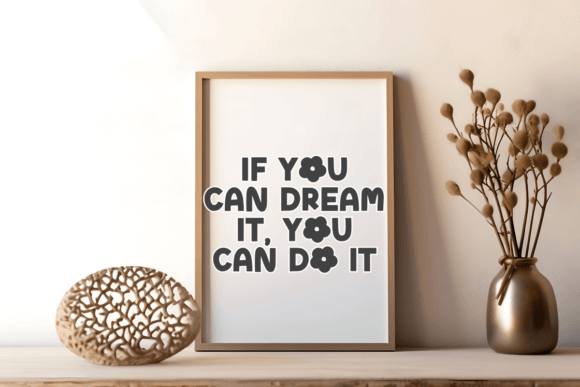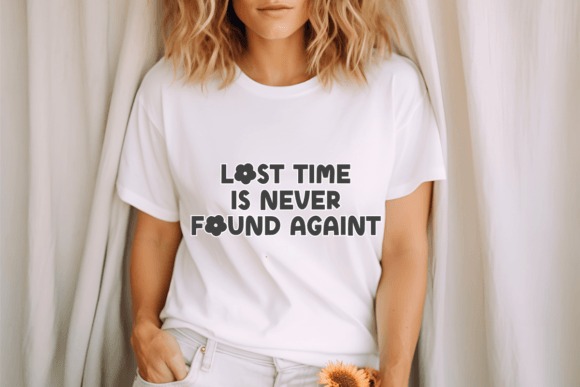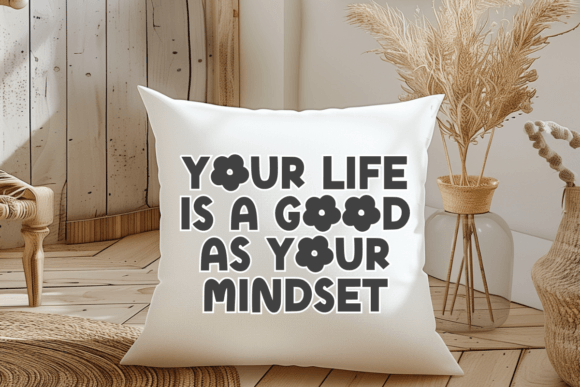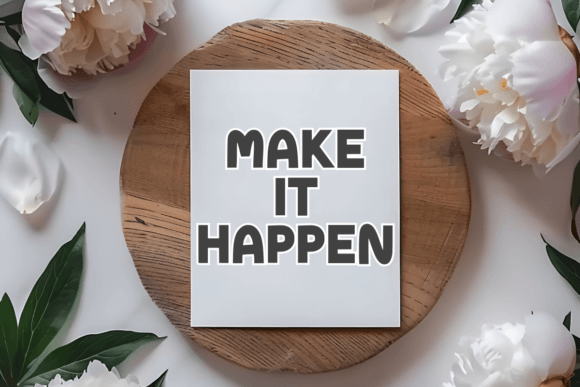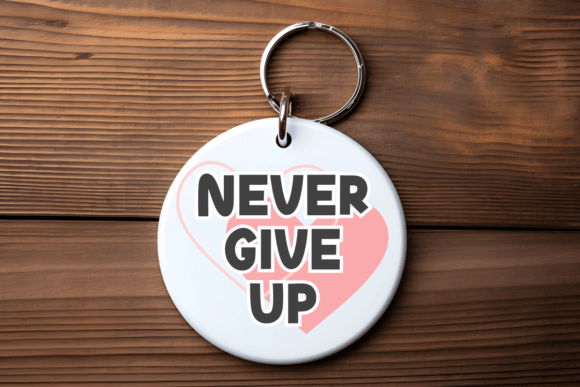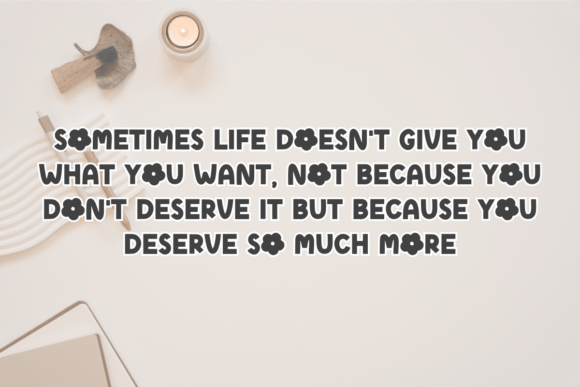
The Perfect Font for Your Next Masterpiece
Have you ever stared at a blank canvas, laptop screen, or piece of paper, waiting for inspiration to strike? You know the feeling – a mix of excitement and nervousness as you try to bring your idea to life. This is where the right font can make all the difference. For designers and creatives, finding the perfect font can be a game-changer. It’s what turns a good design into a great one.
Enter the Awesome World Font – a retro beauty that’s sure to add a touch of fun and quirkiness to any project. With its unique style, this font is an incredible asset to any font library, capable of elevating even the most mundane designs to new heights. Whether you’re working on a logo, advertisement, or social media graphic, the Awesome World Font is a valuable addition to your toolkit.
Awesome World Font Key Features
- Font Family: Awesome World Font is a unique, hand-drawn font that combines elements of fantasy and adventure.
- Size: The font comes in 6 different sizes, ranging from 14 to 72 points, making it suitable for various applications, from body text to headings.
- Resolution: Designed to be highly legible at resolutions up to 300 DPI, making it perfect for print and digital applications.
- Unique Characteristics: The font features intricate details, bold lines, and a mix of uppercase and lowercase letters, creating a sense of adventure and fantasy.
Designer Review: Awesome World Font
First off, I have to say that I was initially excited about Awesome World Font. The ✨ bold and playful style caught my attention, and I thought it would be perfect for a fun, youthful project.
- The font is highly legible, even at small sizes.
- The ✨ varied character set makes it versatile for different applications.
- The font is highly customizable, allowing for easy color and size adjustments.
- ⚠️ Limited language support, which may not be ideal for international projects.
- The font may not be suitable for professional or formal projects due to its playful nature.
- ⚠️ Some characters may not be perfectly rounded, which can affect the overall aesthetic.
Overall, I think Awesome World Font is a great choice for certain projects, but it may not be the best fit for every situation. With some careful consideration and planning, it can be a valuable addition to your design toolkit.
The Awesome World Font is perfect for creating eye-catching headings, titles, and logos. It’s also great for adding a touch of whimsy to your designs. Some common use cases include:
- Creating a brand identity for a children’s book or toy company.
- Designing a logo for a travel or adventure brand.
- Adding a playful touch to a marketing campaign or social media post.